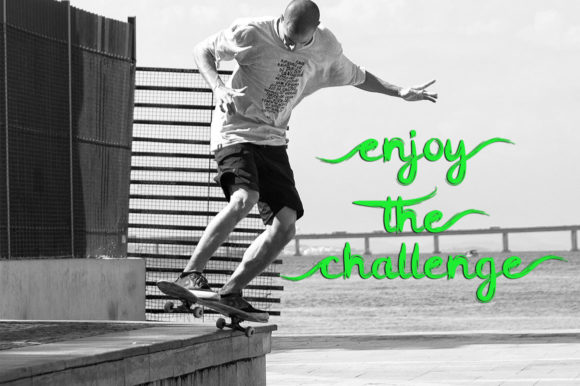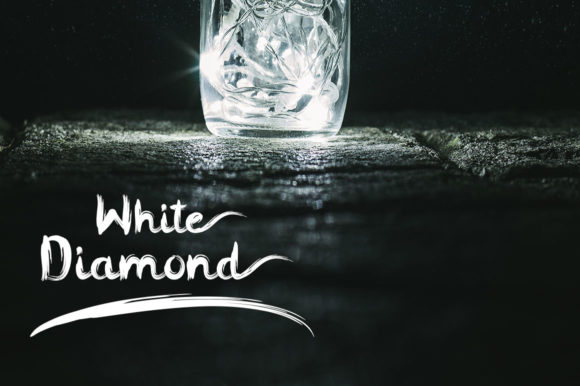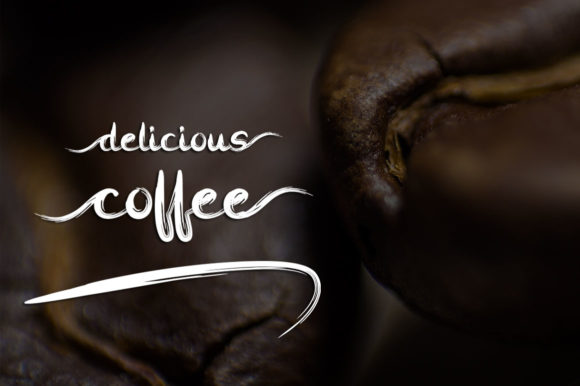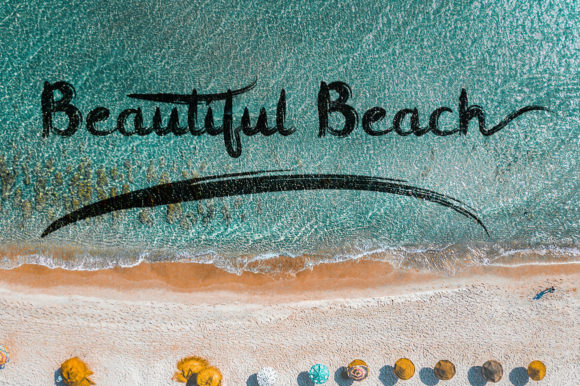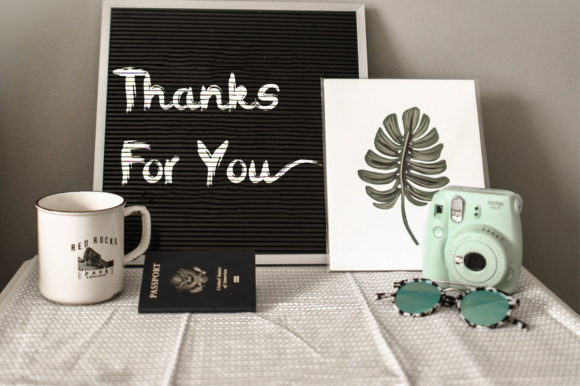
Contania Font
About Contania Font
The Contania is a fresh and modern script font. Its decorative characters and dancing linage give it an elegant feel which can be used to create luxurious designs.